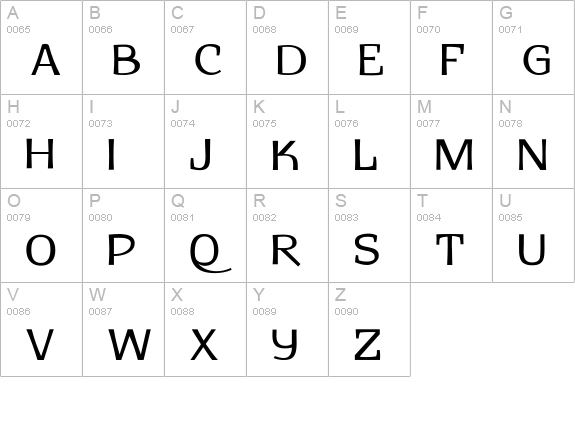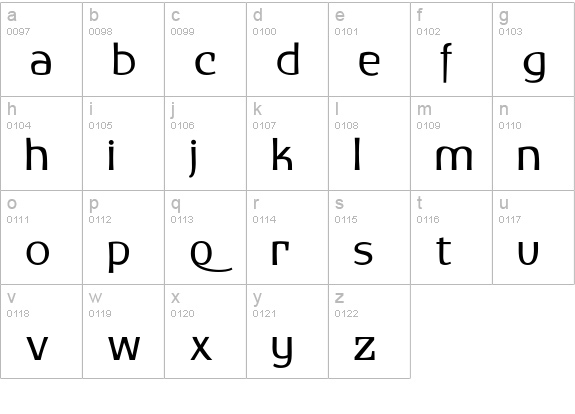
HerdeckeSans Font Details
HerdeckeSans is a modern and stylish sans-serif font that exudes sophistication and elegance. With its clean lines and balanced proportions, this versatile typeface is perfect for a wide range of design projects, from branding to editorial design. The sleek and minimalistic design of HerdeckeSans makes it a popular choice for those looking to add a touch of class to their work. What sets HerdeckeSans apart is not only its timeless design, but also the fact that it is available for free download at FontsMarket.com. This means that you can easily access this high-quality font and use it in your projects without any cost. Whether you're a seasoned designer or just starting out, HerdeckeSans is a valuable addition to your font library. Download it today and elevate your designs with this stunning typeface.